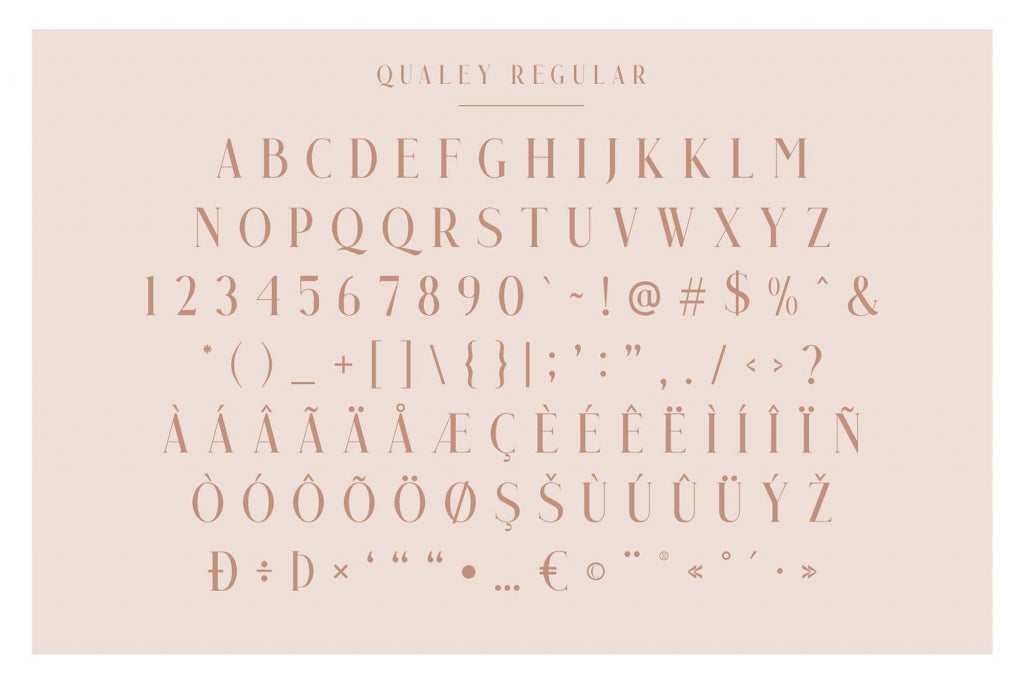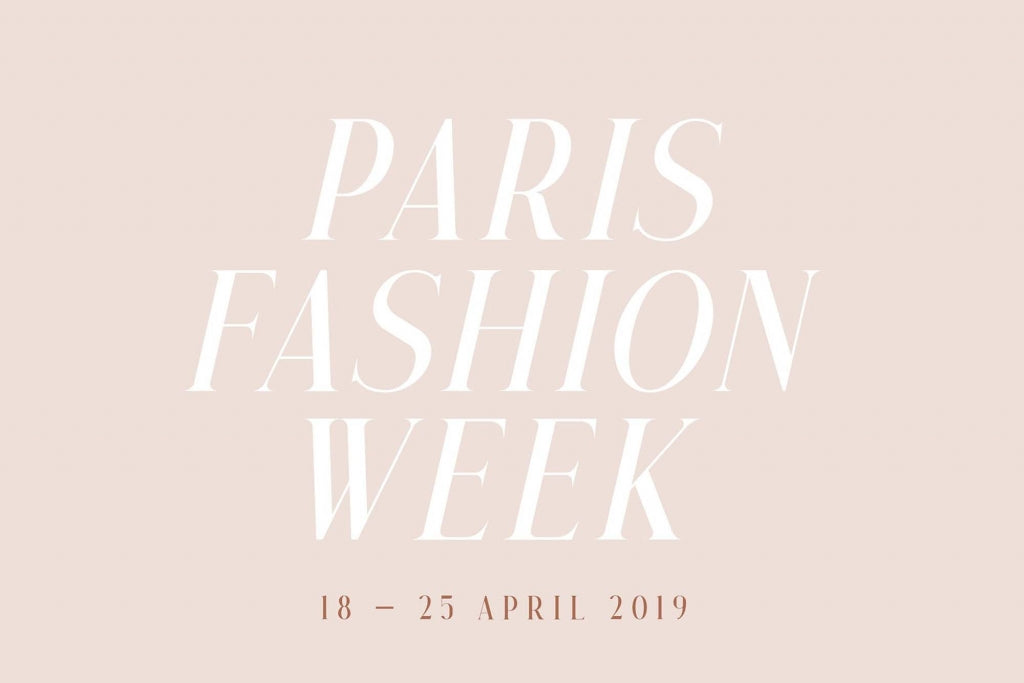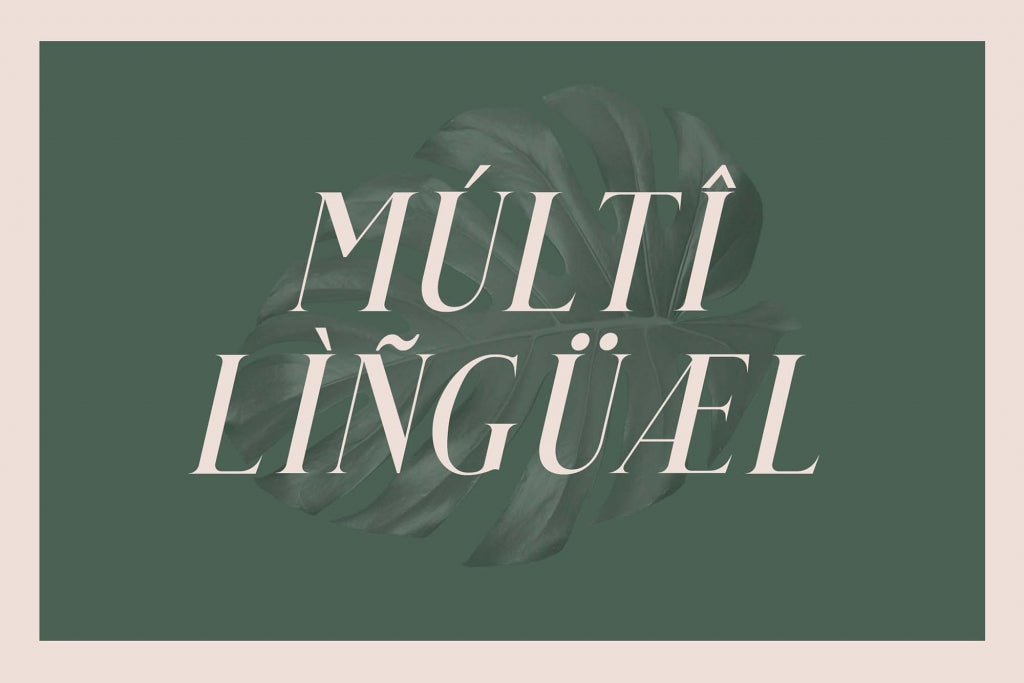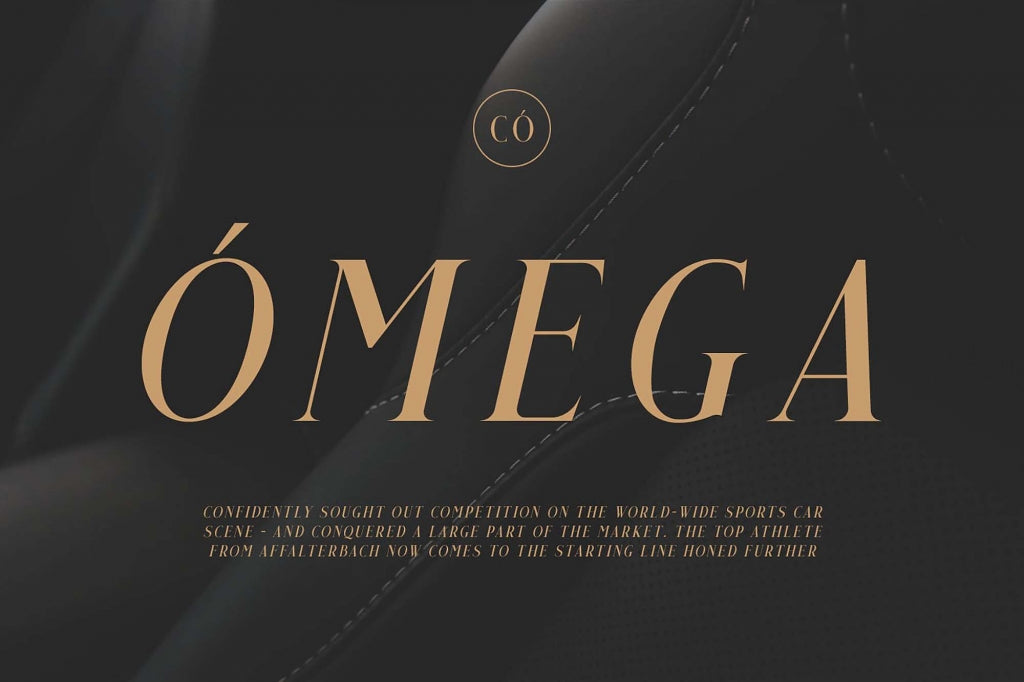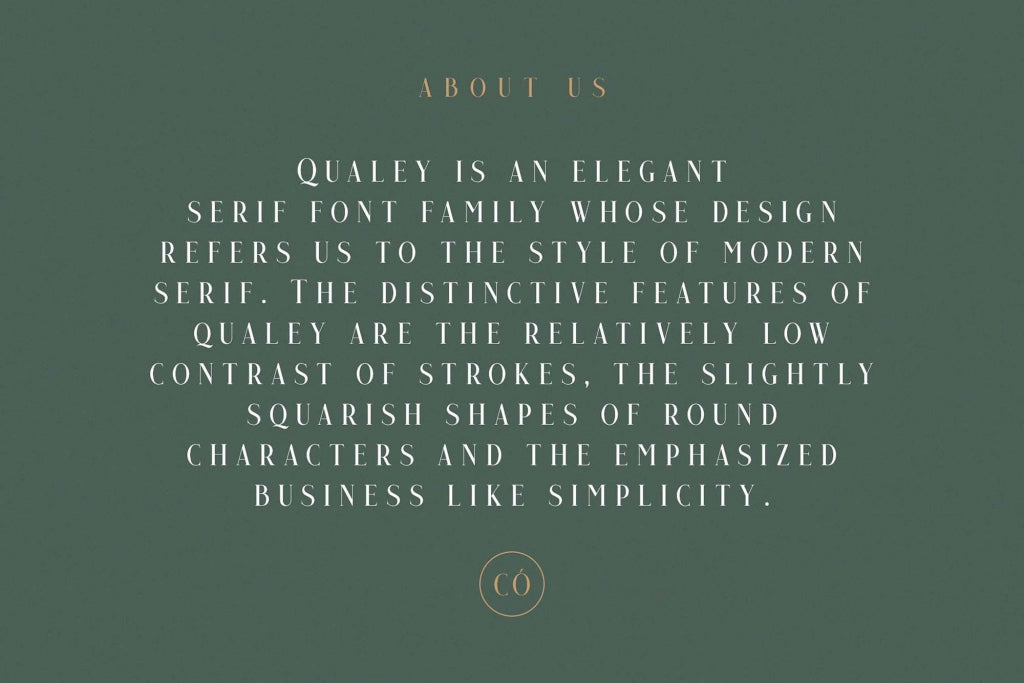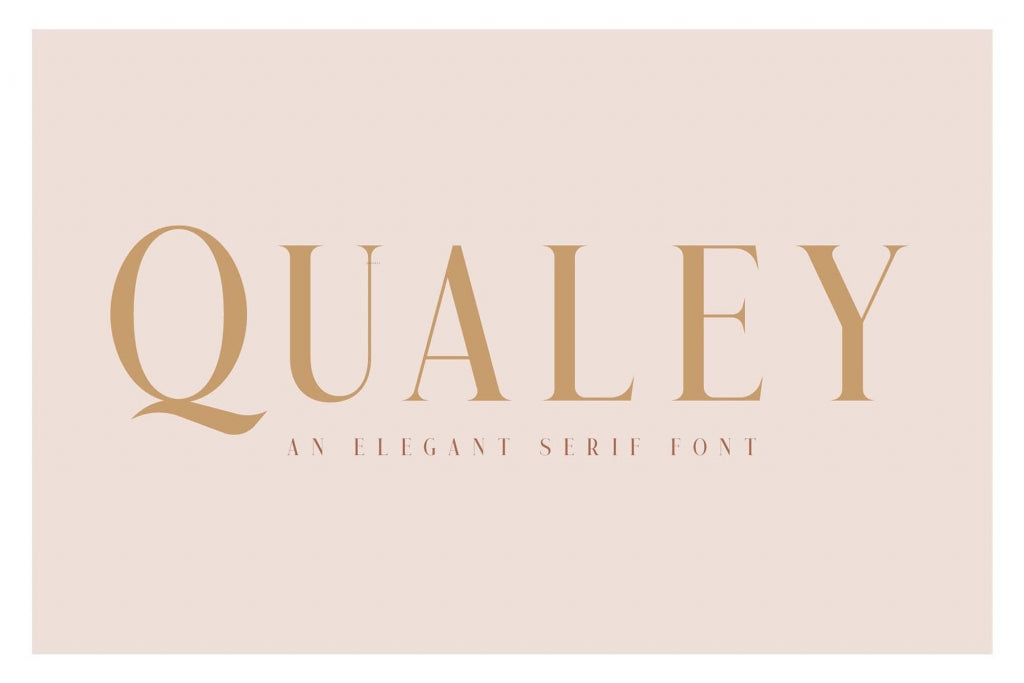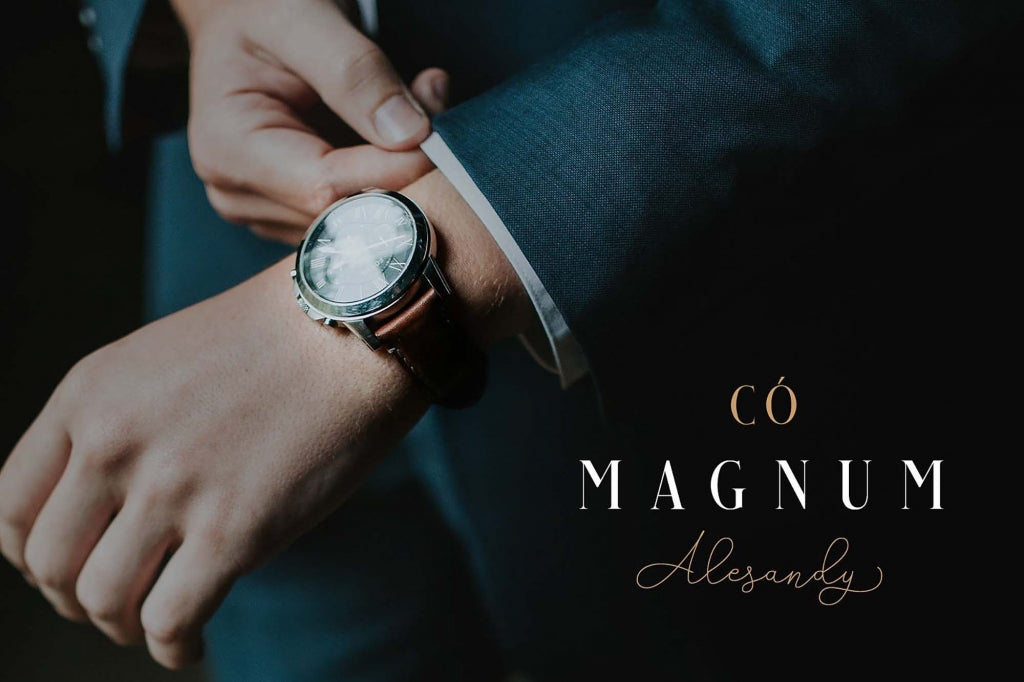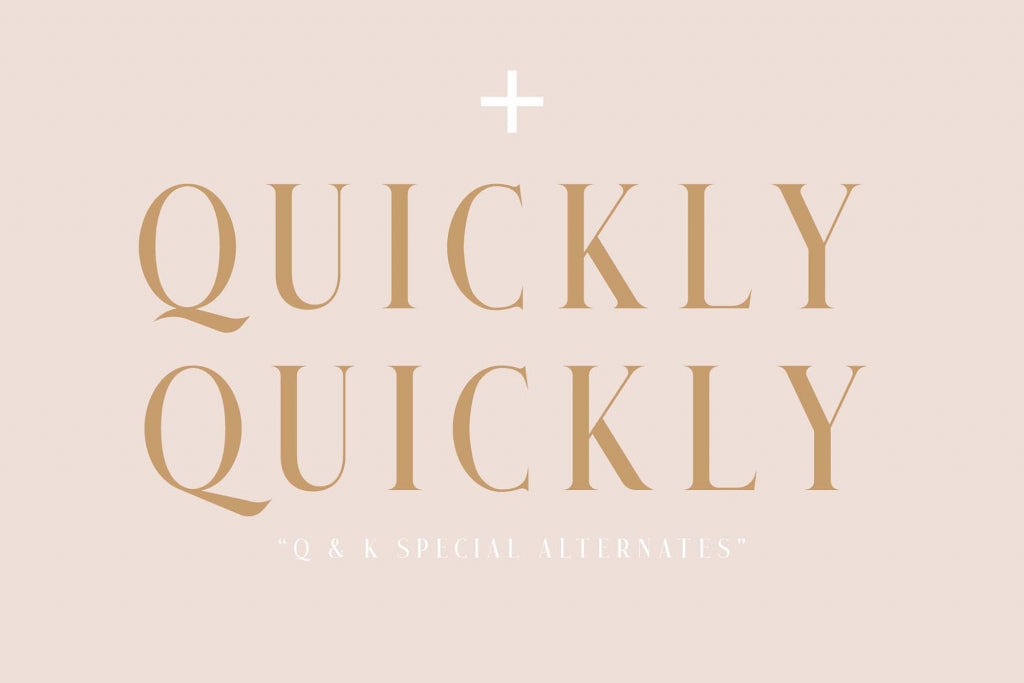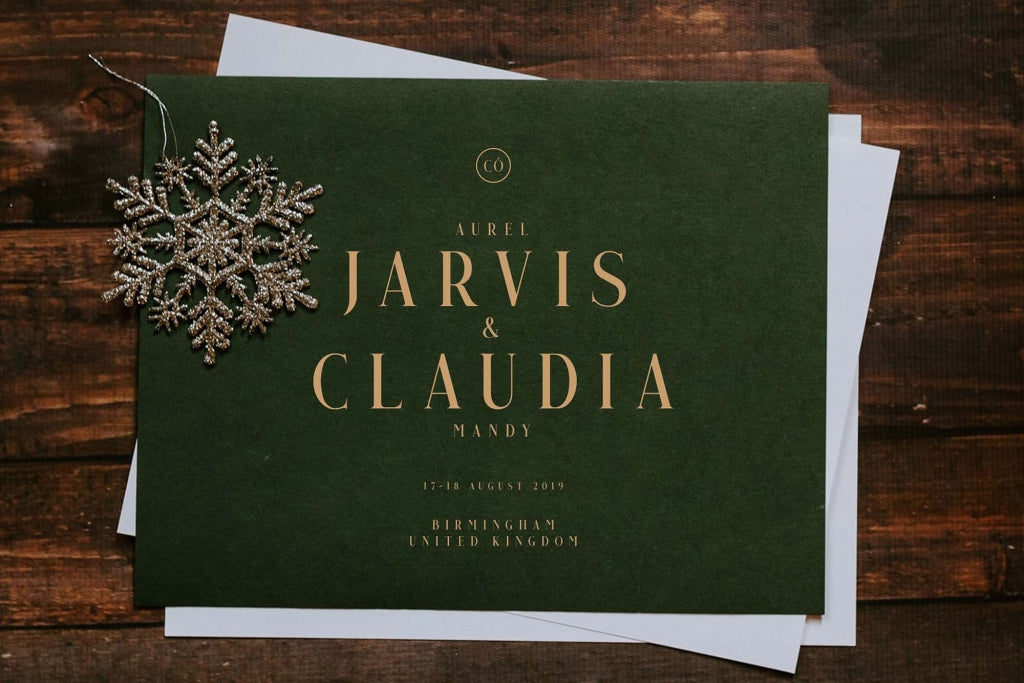
Qualey Elegant Serif Font
Qualey, an elegant serif font provided by Craft Supply Co, brings, with its distinctive features, a peculiar effect that you’ll be glad to see in your projects. With its unique designs and lines, the font offers a variety of features including all caps letters so your designs will always have a heavy presence however you use this font, standard ligatures with special alternates for the K and Q letters, as well as numerals and punctuations to finish off the collection.